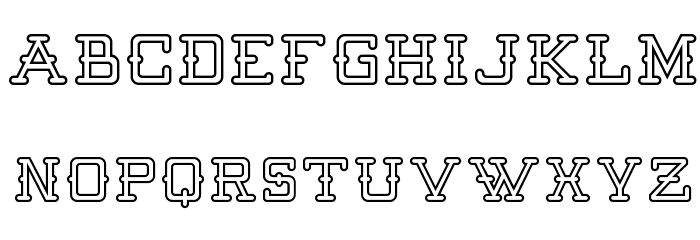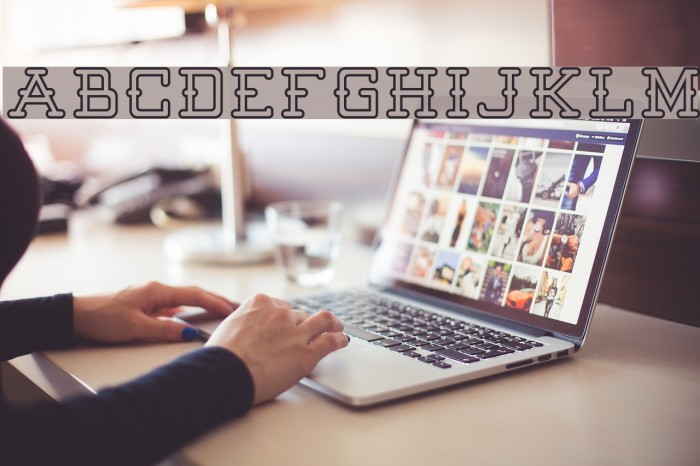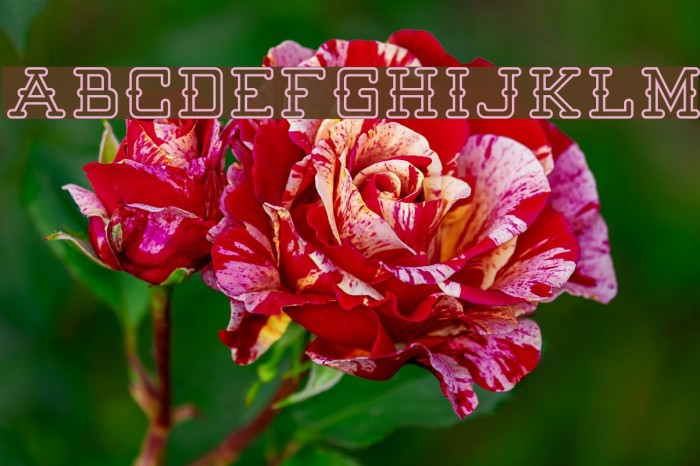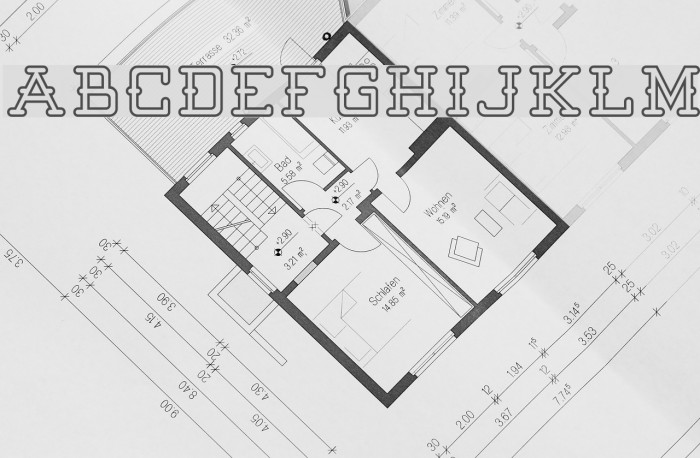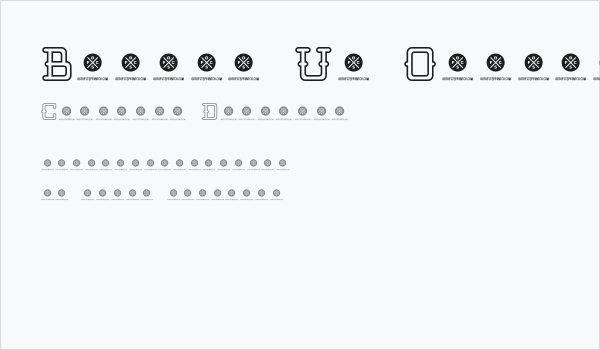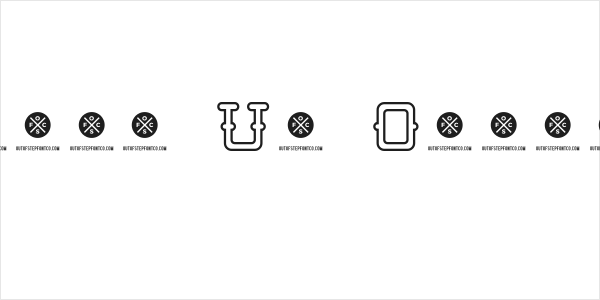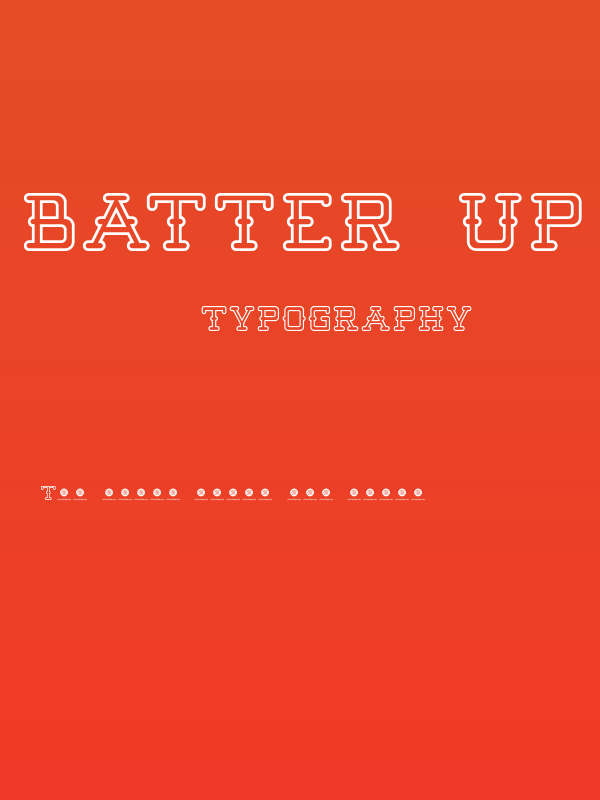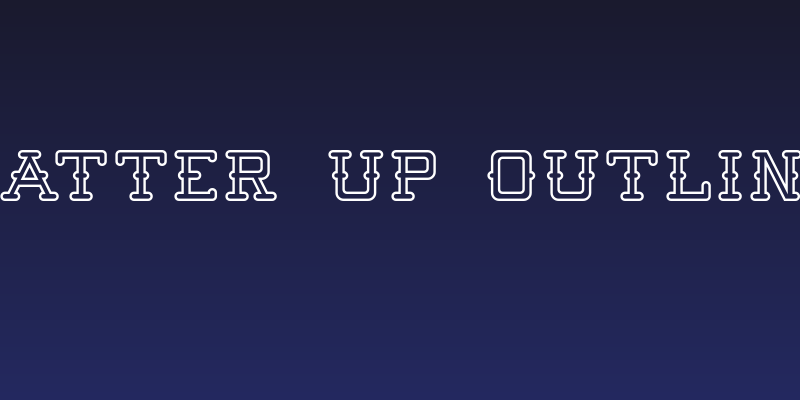
Batter Up Outline Font
Batter Up Outline Description
This font features a bold, outlined style that gives it a strong and impactful appearance. The characters are uppercase and have a uniform width, creating a cohesive and structured look. The outline adds a layer of depth, making the letters stand out prominently. This style is reminiscent of vintage sports or varsity lettering, often seen in team logos or athletic apparel. The clean lines and geometric shapes contribute to its bold aesthetic, making it suitable for designs that require a strong visual presence.
Overall StyleVintage
Use CaseLogos, Headlines
Proposed ProjectsIdeal for sports team logos, athletic apparel designs, posters, and retro-themed branding.